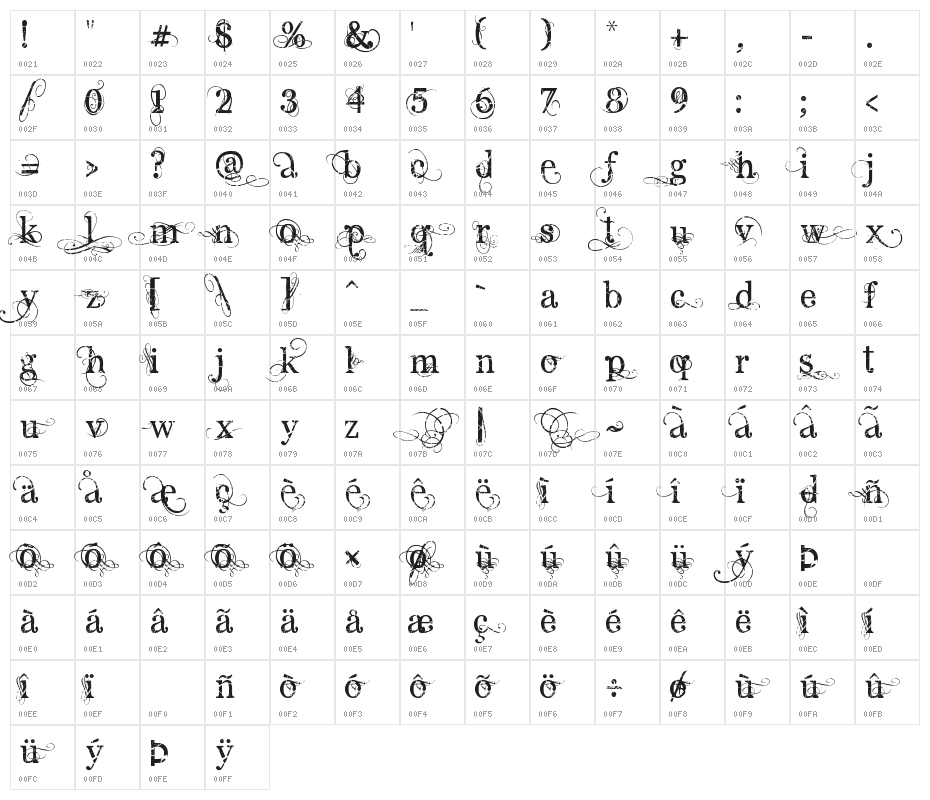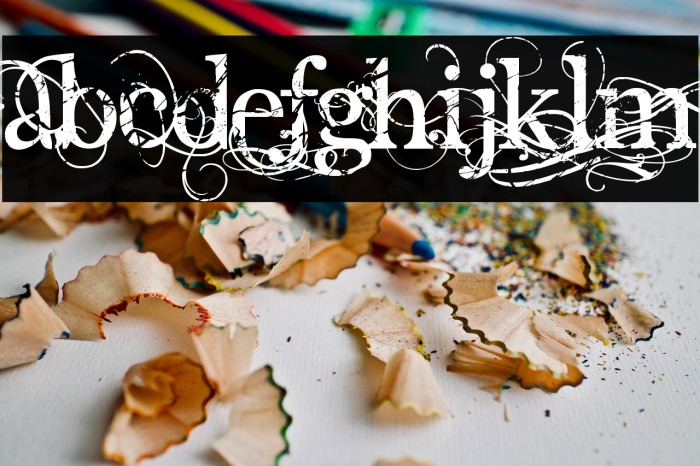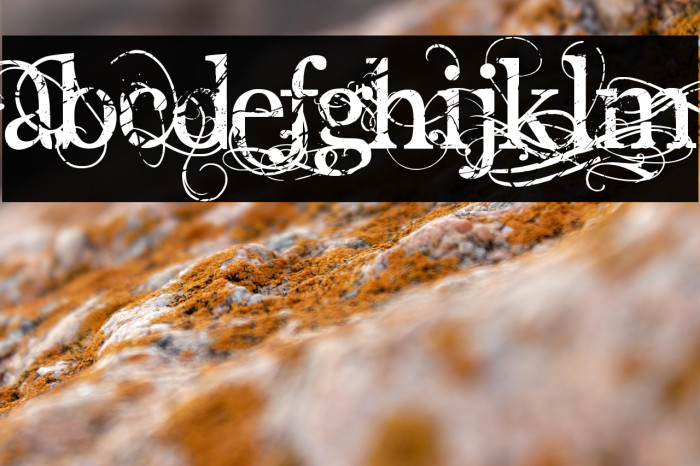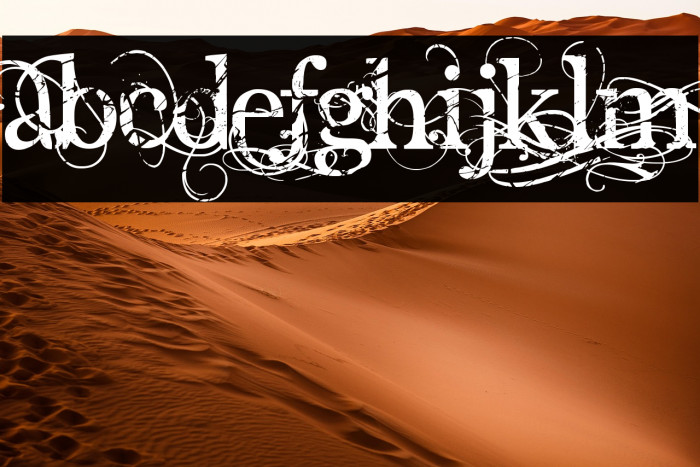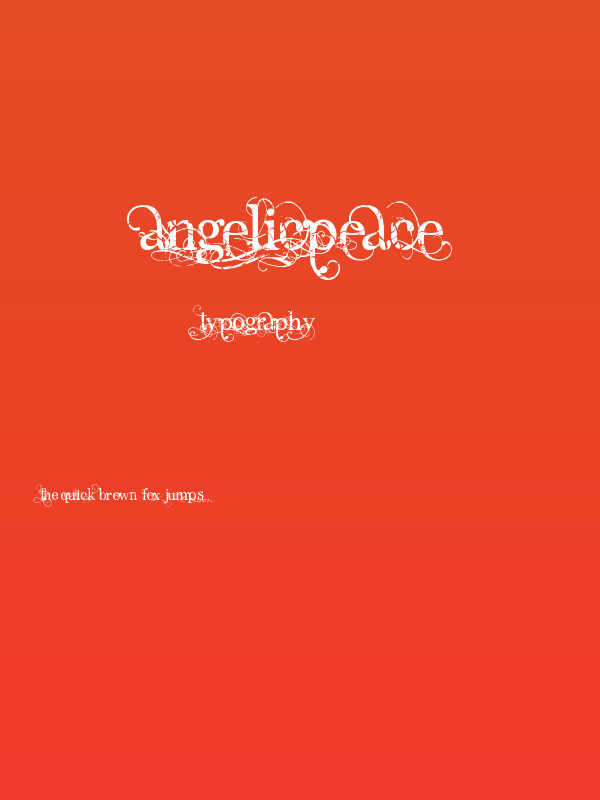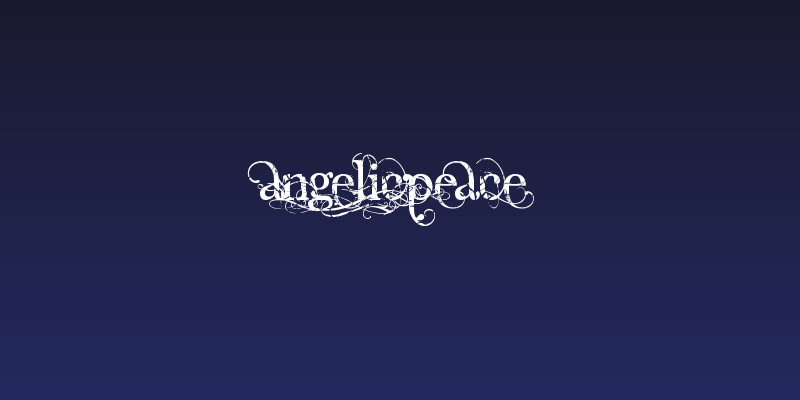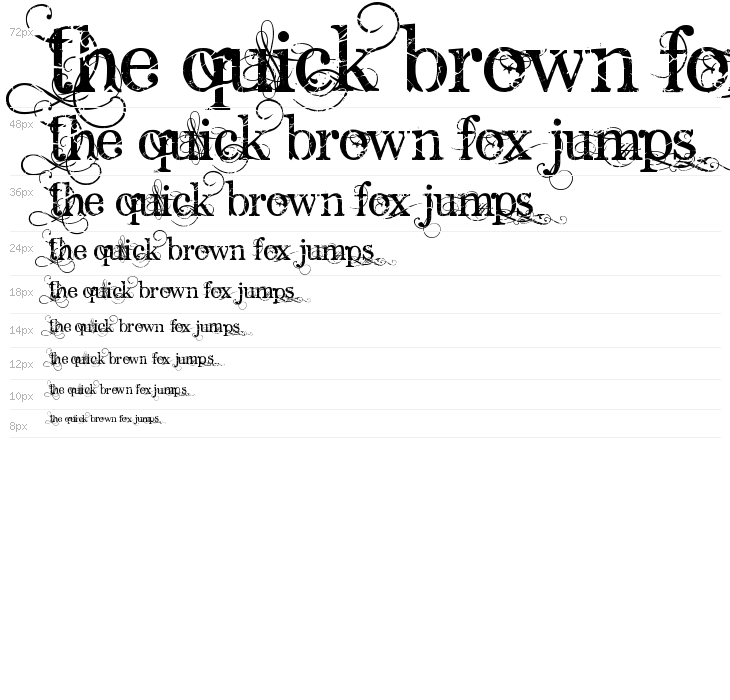
AngelicPeace Font
AngelicPeace Description
This font is an elaborate and decorative typeface characterized by its intricate swirls and flourishes that extend from the main strokes of each character. The design is highly ornamental, with a classic serif structure that is heavily embellished, giving it a distinct and artistic appearance. The uppercase and lowercase letters are equally adorned, creating a cohesive and visually striking set. The numbers and special characters follow the same ornate style, ensuring consistency across all elements. This font is ideal for projects that require a touch of elegance and sophistication, making it suitable for invitations, branding, and artistic designs.
| Use Case | Headlines, Logos, Artistic designs |
| Proposed Projects | Ideal for wedding invitations, luxury branding, artistic posters, and decorative headings. |